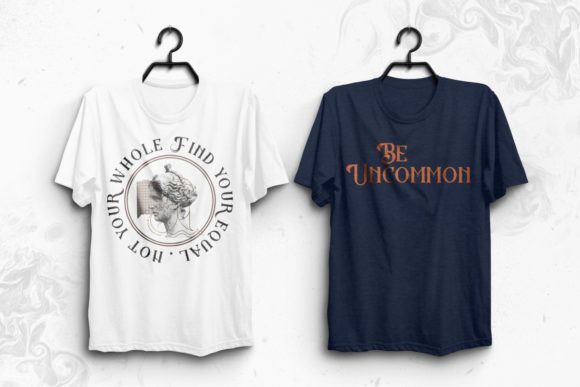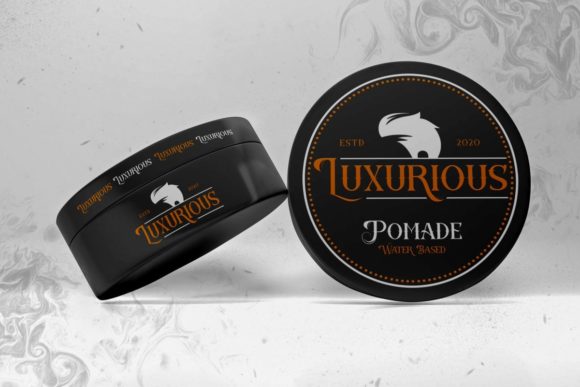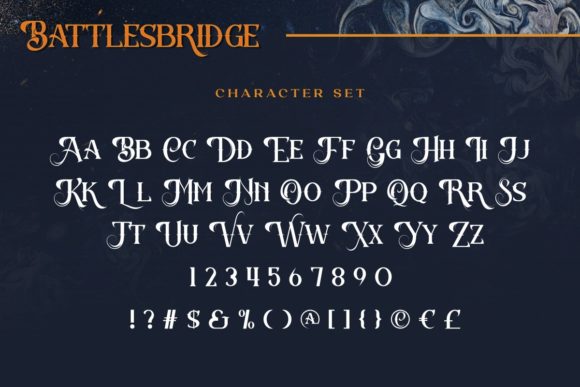
BATTLESBRIDGE FONT SPECIMEN
Introducing Battlesbridge, a stylish and whimsical slab serif font that brings a unique and captivating touch to your typography. With its horror-inspired style and bold, curly flair, Battlesbridge is the perfect choice for projects that require distinctive and eye-catching typography. It excels in enhancing the appearance of Halloween items and other spooky genres, adding an extra layer of charm and allure.
Battlesbridge’s stylish and whimsical nature sets it apart from traditional slab serifs. Its unconventional letterforms and bold, curly details inject a sense of playfulness and intrigue into your designs. Whether you’re working on Halloween-themed invitations, haunted house flyers, horror movie posters, or any other project within the spooky genre, Battlesbridge creates a visually captivating experience that resonates with audiences.
One of the standout features of Battlesbridge is its ability to elevate the appearance of Halloween items. From party decorations and trick-or-treat packaging to costume designs and event posters, this font adds a touch of personality and excitement. Its horror-inspired style captures the essence of the season, immersing viewers in a thrilling and whimsical atmosphere.
Battlesbridge’s bold and curly flair makes it an excellent choice for designs that embrace the spooky genre. Its unique letterforms bring an element of surprise and curiosity, reflecting the whimsical nature of the genre. Whether it’s for book covers, comic strips, or illustrations, Battlesbridge adds a layer of charm that resonates with fans of horror and fantasy.
While Battlesbridge excels in the spooky realm, its versatility extends beyond Halloween-related projects. Its stylish and whimsical characteristics make it suitable for various creative endeavors, including children’s books, fantasy-themed designs, and artistic branding materials. Battlesbridge adds a touch of magic and uniqueness that captivates viewers and brings your imagination to life.
In summary, Battlesbridge is a stylish and whimsical slab serif font that brings a unique flair to your typography. Its horror-inspired style and bold, curly nature make it perfect for projects that embrace the spooky genre, especially during Halloween. Let Battlesbridge be your typographic companion, adding charm, excitement, and a touch of whimsy to your creative endeavors.